Whether you are making a birthday party invitation, a website for a local convention, or writing the next big tabletop RPG, finding just the right fantasy font for your work is imperative. Whyâs that? Because for many works and designs, the fonts used for logos and posters and print and web marketing showcase the aesthetic and feel of whatever youâre working on. Harry Potter fans know something is for them just by looking at the fonts used. So weâve rounded up some of the best fantasy fonts out there so you can be sure to appeal to your target audience, no matter who they are.
1. Mythshire
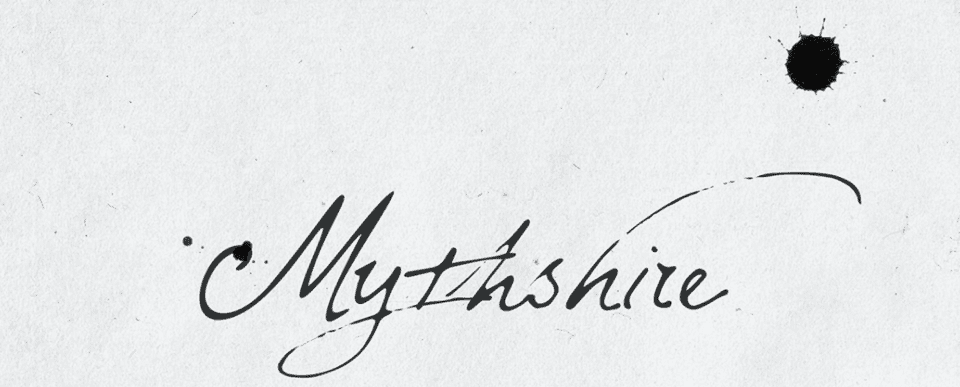
Talk about a gorgeous font. Mythshire is one of the most complete fonts that weâve come across in quite a long while. Designed to look as though youâre writing with a quill and ink, Mythshire comes with variants of uppercase and lowercase letters, as well as alternate ligatures to actually change and alter the way the script looks in the documents.
Additionally, the pack includes 8 paper textures to make your documents have even more of a tactile appearance and 14 ink splats that were physically made and scanned as Photoshop brushes and PSDs. Itâs not often you get a font family or typeface with this kind of attention to making it a complete product. If you have any need for a fantasy font, Mythshire should absolutely be one of your first looks. For $19, itâs a steal.
2. Story Tales
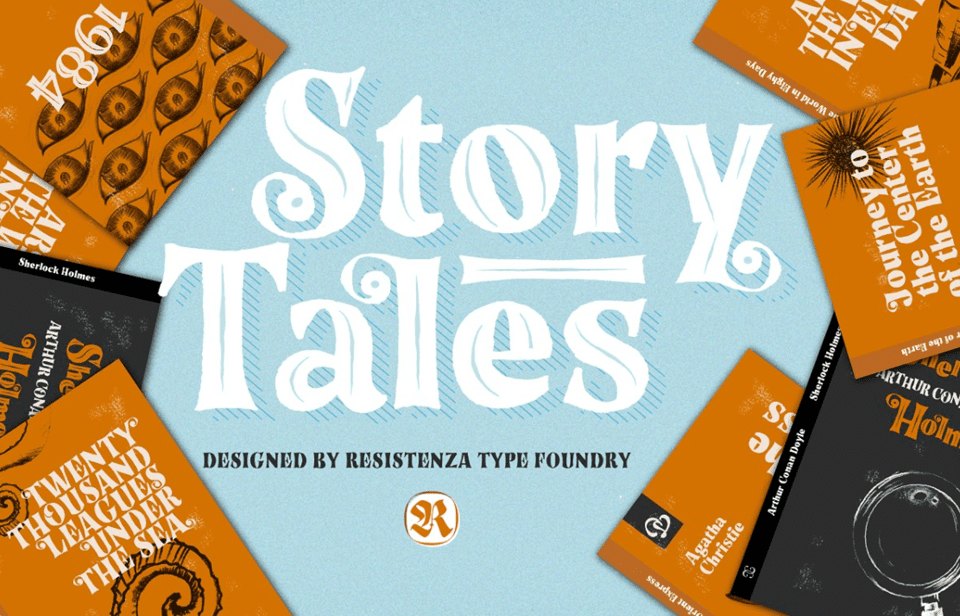
Using Story Tales in your work will give it a nice fairy-tale quality because the font is based on the design of mid-20th-century publishing trends. For many people, books of fairy tales and fantasy novels were published with similar fonts on the cover and within as headers and chapter breaks, so designing with it will not only give your designs a great retro feel, but they will also provide some nice nostalgia for a large part of your audience.
3. War Priest
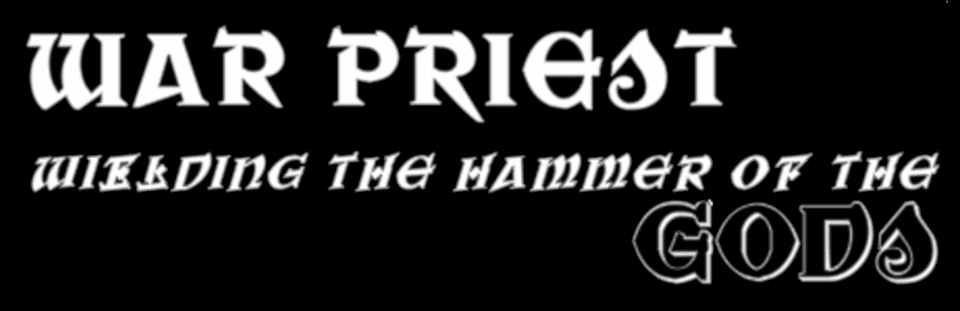
On the opposite end of the spectrum from Story Tales is War Priest. A font that hits on more of the grimdark area of the fantasy genre, this one will absolutely find home in designs that need a little more edge than sparkle. With font sets that include over 190 glyphs, non-English characters are well accounted for. Not to mention, War Priest comes in multiple variants and styles: bolds, italics, outlines, solid, filled, and so on.
4. Fantastic Creatures
Thereâs something cathartic, really, about using a wingdings font. Instead of clipart or finding full designs to accent your work, fonts like Fantastic Creatures give you scalable graphics that you can use in basically any program at any time. Need it on the web? Done. Need it in Photoshop? Okay. Does that program not let you import your own images? Bet it lets you use system fonts! Fantastic Creatures comes with all the staples, dragons, unicorns, phoenixes, gryphons (or griffins, if you prefer). Your clipart bestiary is all but complete with this one.
5. Unicorns Are Awesome
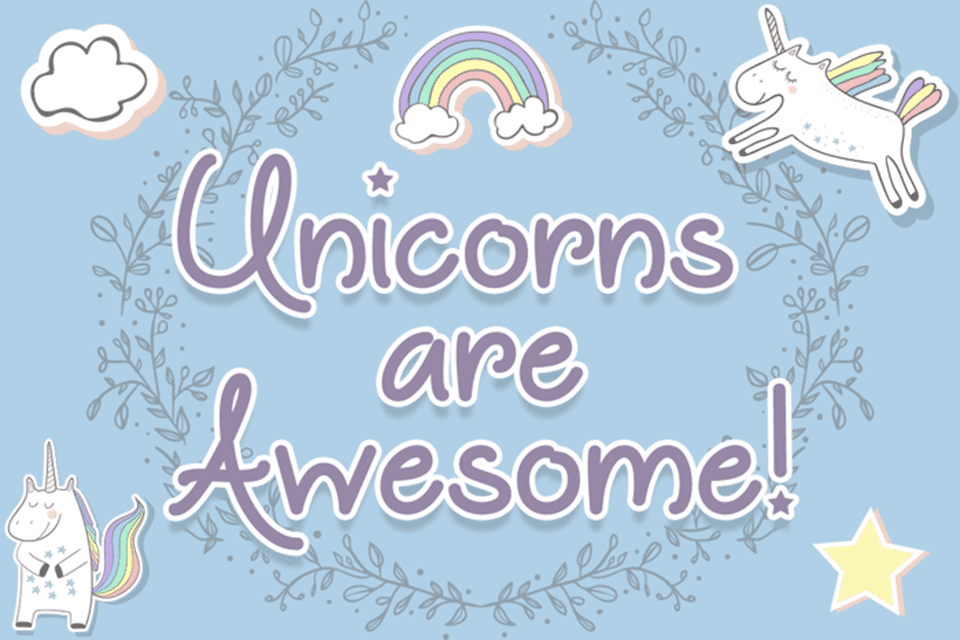
We arenât sure what else to say here, but âyes, they are.â The name of this fantasy font says it all, really.
6. Geno
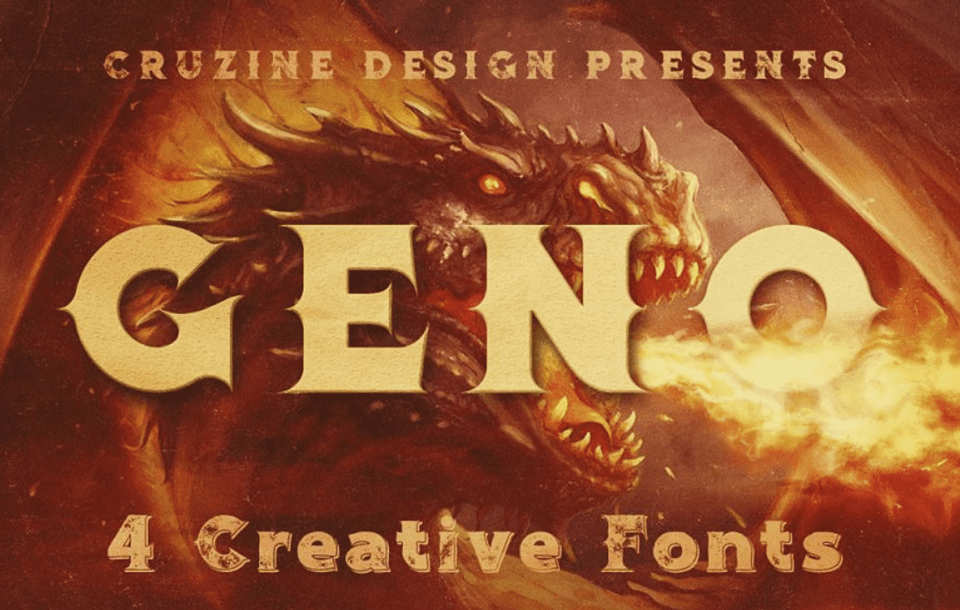
When the banner image for your font is a fire-breathing dragon, you can bet your design software that itâs the perfect fantasy font. Useful in any situation where you need to give a document, website, or app a bit of dramatic flair, Geno can do it. A collection of 4 different fntasy fonts, the typeface collection includes the regular version, a shadow version, a grunge version, and a shadowed grunge variant. Regardless of what level of polish or distress you need, Genoâs got it.
7. Critical Role Play
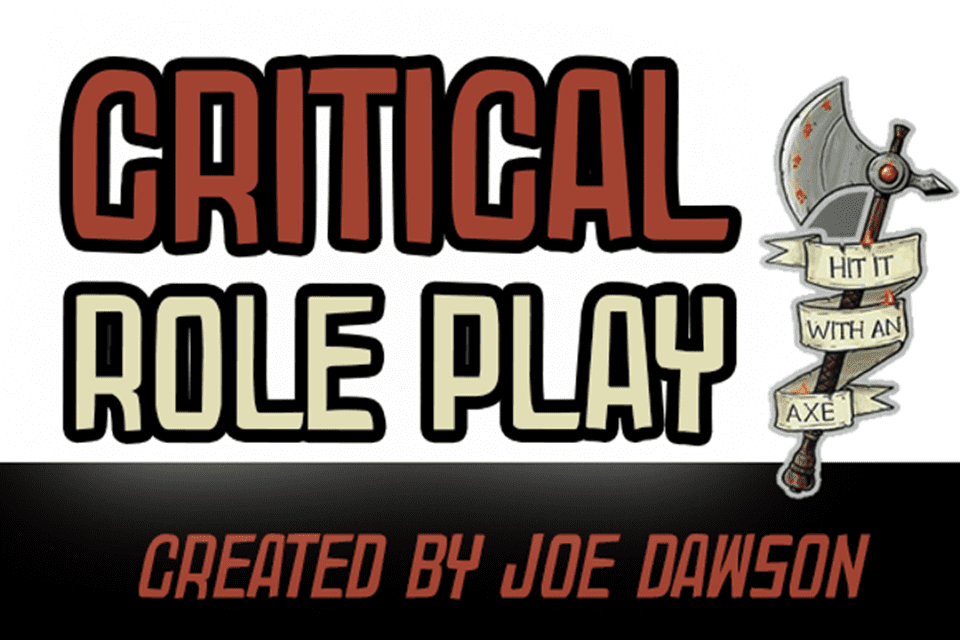
Taking its name from a play on one of the most popular roleplaying game shows out there, Critical Role, this font is built from the ground up to give your designs a look thatâs immediately recognizable. With its hand-drawn appearance, you will give a definite personal vibe to your work with Critical Role Play. 90 characters are included with the typeface, although theyâre just the English alphabet and related symbols. You will get two versions, the normal and italic, which you can see above in the image.
8. Comics Runes
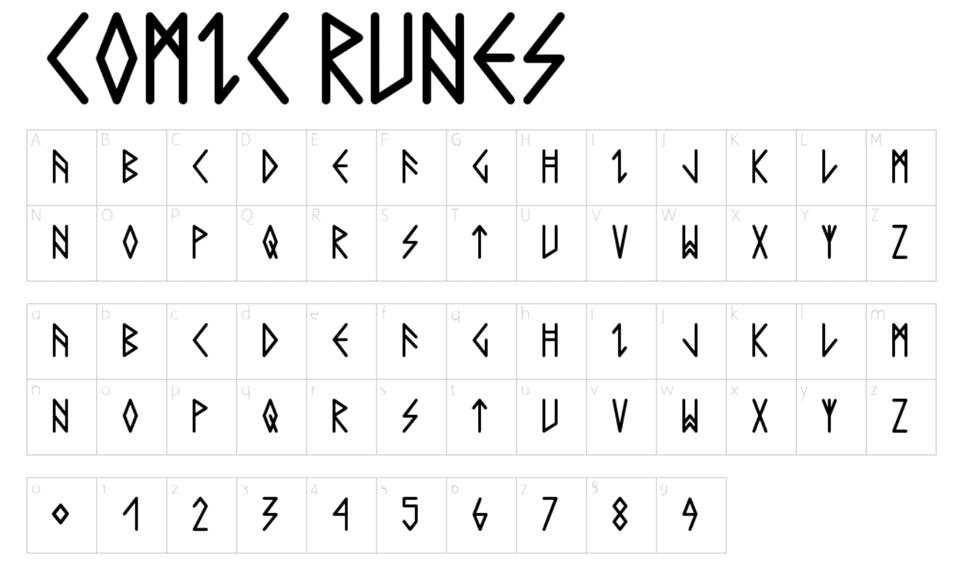
Not to be confused with Comics Sans, Comic Runes sits at a cool place as a fantasy font. This font is absolutely not made up of real runes that were used by ancient peoples, but the designer Adrian Candela has made it so that each glyph looks like it could have been. Comic Runesâ design is fantastic. The right designer could certainly incorporate it into designs not only as letters, but as symbols and decoration also.
9. Mistlock
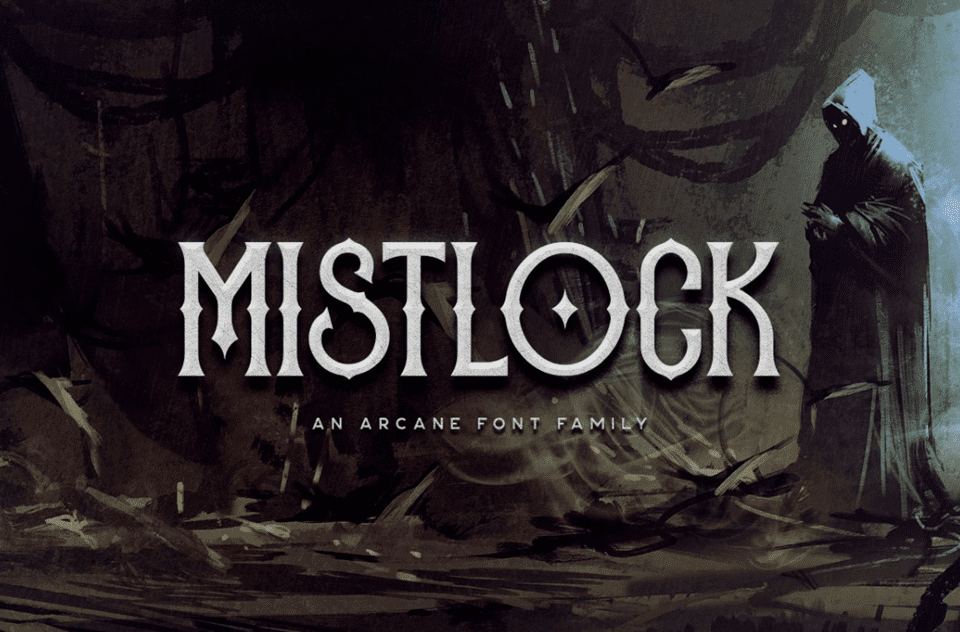
Mistlock is a pretty font. Coming in a rough and normal version, you can create some inspired designs with this one. Whether you need a handout for your roleplaying game that needs to look distressed and weathered or a flyer for an upcoming board game night at the student commons, Mistlock will certainly be able to handle whatever you can throw at it.
Maybe something is wrong on my end, but the links provided for Mythshire go to Mistlock, which is referenced later in the post.